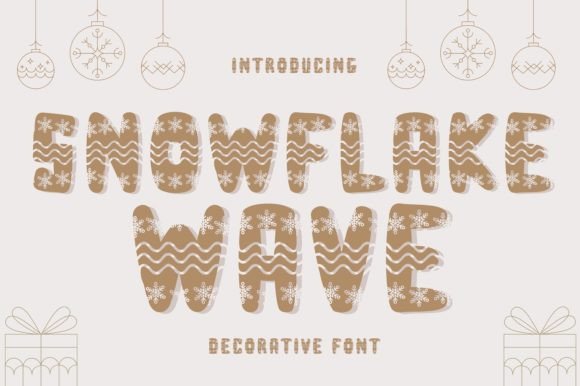
Behold the Snowflake Wave Font—a delightful, eye-catching font from Brown Cupple Fonts that breathes life and magic into your creative endeavors. It's a Christmas-inspired font that embodies playfulness, warmth, and authenticity, making it an instant favorite among designers, bloggers, and anyone seeking fonts for text logos.
Immerse yourself in the charm of the Snowflake Wave Font and let your imagination dance. Its whimsical style adds a dash of magic to blog posts, logos, branding, social media posts, and invitations. Create heartwarming holiday greetings, design festive cards, or embellish your personal projects with an enchanting touch.
Envision the Snowflake Wave Font gracing your invitations, adding a touch of wintry elegance to your special occasions. Let it adorn your greeting cards, spreading warmth and cheer to loved ones. Use it in your blog posts or online content, captivating your audience with its captivating allure.
Unlock your creativity with the Snowflake Wave Font and embark on a journey of artistic exploration. It's a font that inspires, uplifts, and captivates, bringing joy and wonder to your designs. Dive into the world of creative possibilities with Snowflake Wave, where imagination knows no bounds.